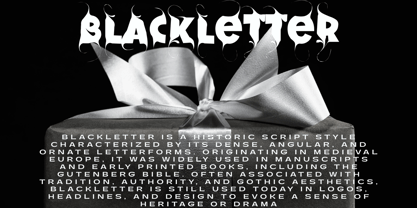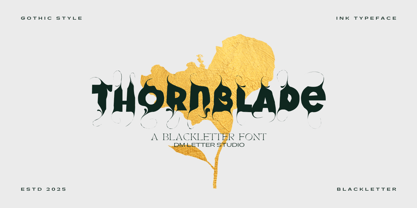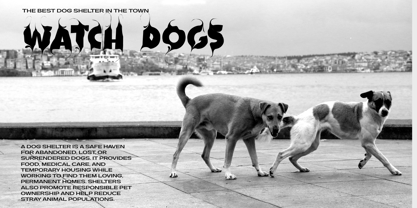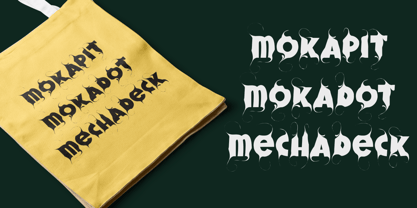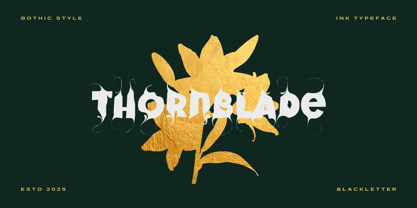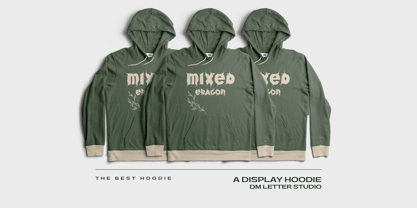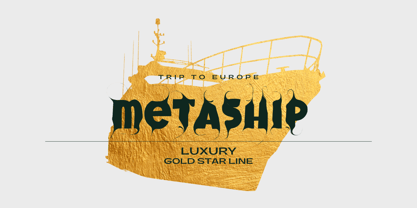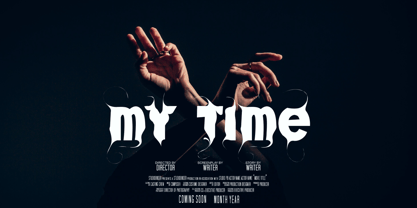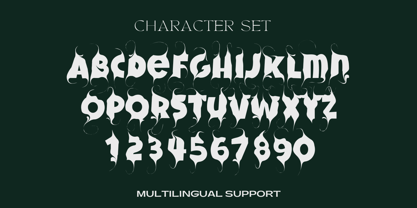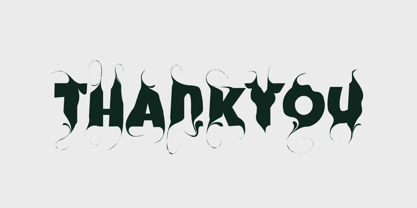
Thornblade
by DM Studio
The Thornblade Font Family was designed by Dimas Prasetyo and published by DM Studio. Thornblade contains 1 styles.
Thornblade is a bold and striking Blackletter font designed to bring power, drama, and medieval elegance to your designs. With its sharp edges, intricate curves, and gothic style, Thornblade is perfect for branding, tattoo designs, heavy metal album covers, posters, apparel, and anything that calls for a bold, dark aesthetic. Whether you're creating a fantasy-themed project or want to add a rebellious edge to your text, Thornblade delivers timeless Blackletter impact.
Features:
• Bold Blackletter Style: Inspired by traditional Gothic calligraphy with a modern edge.
• High Contrast Strokes: Thick and thin elements that create a dynamic, eye-catching effect.
• Sharp Detailing: Intricate letterforms with thorn-like accents for added drama